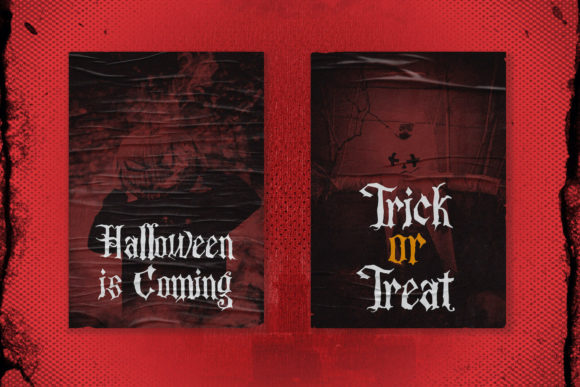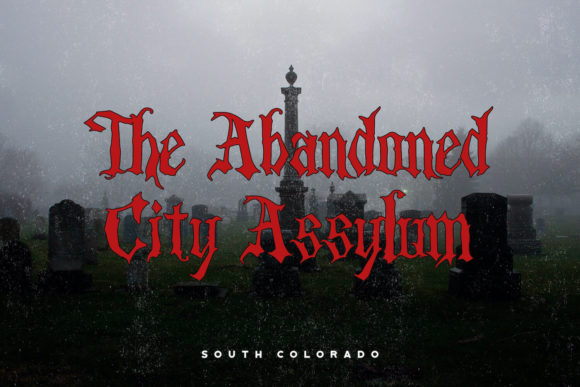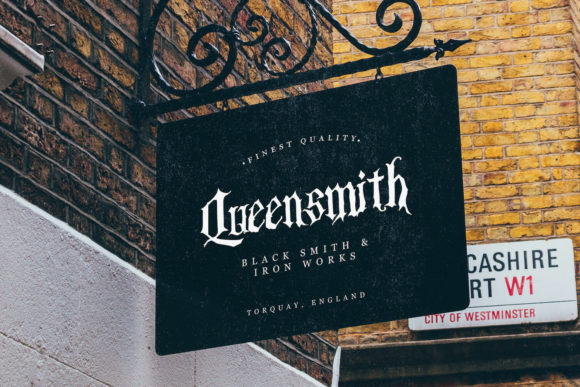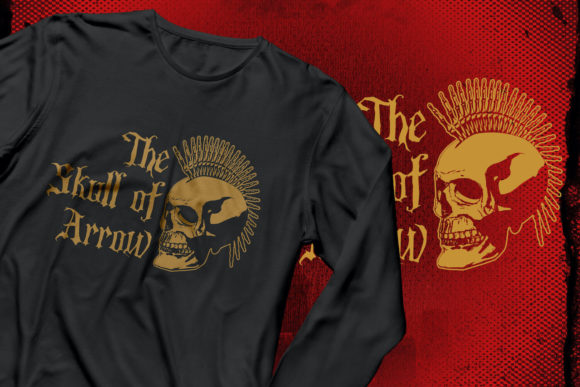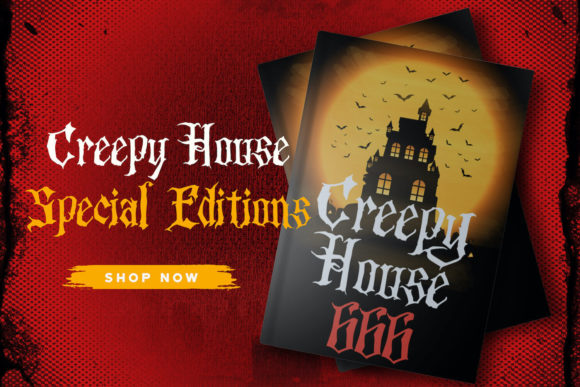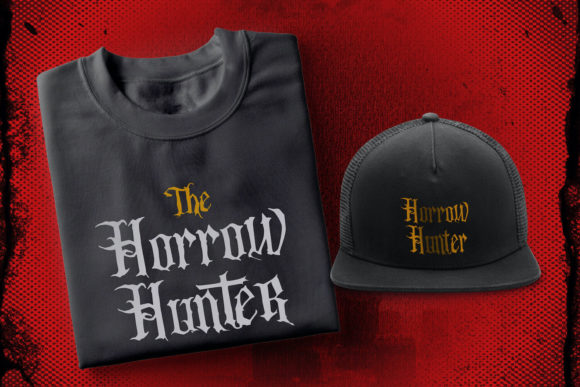
Unleash the Horror with Dark Angels Font: The Ultimate Display Font for Spooky Projects
Are you a designer or crafter looking for a font that can add a spooky touch to your projects? Look no further than Dark Angels Font, a unique display font that is perfect for any horror-themed project. With its eerie and haunting feel, Dark Angels Font is ideal for creating eye-catching and terrifying designs that will leave a lasting impression on your audience.
What is Dark Angels Font?
Dark Angels Font is a specially designed display font that features a spooky and eerie feel. Its unique design makes it perfect for use in horror-themed projects, such as movie posters, flyers, and Halloween crafts. The font is designed to evoke a sense of fear and unease, making it ideal for designers and crafters who want to create designs that are both haunting and memorable.
Key Features of Dark Angels Font
- Unique Design: Dark Angels Font features a one-of-a-kind design that is both spooky and elegant. Its unique lettering and typography make it stand out from other fonts, ensuring that your designs will be noticed.
- Horrific Feel: The font has a horrific feel that is perfect for horror-themed projects. Its eerie and haunting design will send shivers down the spines of your audience, making it ideal for Halloween crafts, movie posters, and other spooky designs.
- Versatile: Dark Angels Font is versatile and can be used in a variety of projects, including movie posters, flyers, brochures, and Halloween crafts.
- Easily Readable: Despite its spooky design, Dark Angels Font is easily readable, making it perfect for use in titles, headings, and other design elements.
Uses of Dark Angels Font
Dark Angels Font is perfect for a variety of projects, including:
- Movie Posters: Create eye-catching movie posters that will grab the attention of horror movie fans. Dark Angels Font is perfect for creating titles and taglines that will make your movie poster stand out.
- Halloween Crafts: Add a spooky touch to your Halloween crafts with Dark Angels Font. Use it to create eerie and haunting designs that will make your crafts stand out.
- Flyers and Brochures: Use Dark Angels Font to create eye-catching flyers and brochures for horror-themed events, such as haunted houses and horror movie screenings.
- Social Media Graphics: Create spooky social media graphics that will grab the attention of your followers. Dark Angels Font is perfect for creating eye-catching titles and headings that will make your graphics stand out.
Dark Angels Font is a unique and eye-catching display font that is perfect for horror-themed projects. Its spooky and eerie design makes it ideal for creating designs that will leave a lasting impression on your audience. With its versatility and readability, Dark Angels Font is perfect for use in a variety of projects, from movie posters to Halloween crafts. So why wait? Download Dark Angels Font today and unleash the horror in your designs!